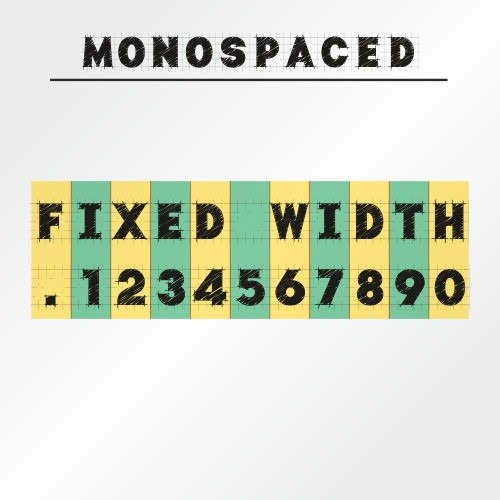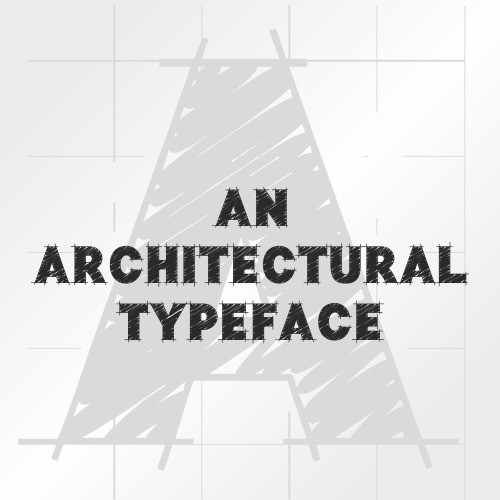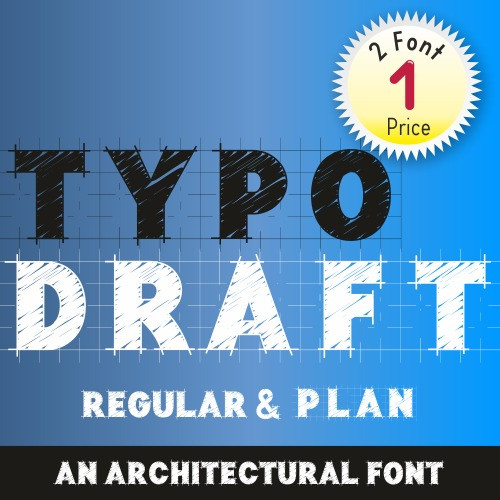
Typo Draft Font
Typo Draft by StudioTypo is a masterful typeface crafted with designers, architects, and engineers in mind. This grid-based font is not only visually striking but also practical, making it an excellent choice for projects requiring a precise, technical aesthetic. Its structure pays homage to the clean, linear aesthetics often associated with technical drawings and blueprints.
This typeface supports an extensive range of characters, including Basic Latin, West European Diacritics, Central European, Baltic, and Turkish alphabets. It also incorporates numeral systems and common currency symbols, such as €, US$, £, ₺, Yen, and Frank, making it suitable for global applications.
The Inspiration Behind Typo Draft
Typo Draft was born from a passion for architectural clarity and design. Its development was driven by the need for a versatile typeface that would seamlessly integrate into architectural plans, technical documentation, and industrial presentations. StudioTypo’s founder, Mehmet Abacı, infused the design with elements reminiscent of traditional drafting tools, blending form with function.
Ideal Use Cases
Architectural and Technical Drawings: Perfect for professionals needing a polished yet legible font for blueprints or schematics.
Modern Branding: Its clean, structured lines make it ideal for logos or technical brand identities.
Instructional Materials: Ideal for manuals, guides, and diagrams where clarity is paramount.
By combining aesthetic appeal with practical design, Typo Draft has become a favorite among professionals seeking to elevate their technical projects. Whether you’re working on a sleek modern design or detailed architectural layouts, Typo Draft provides the tools to communicate with precision and style.